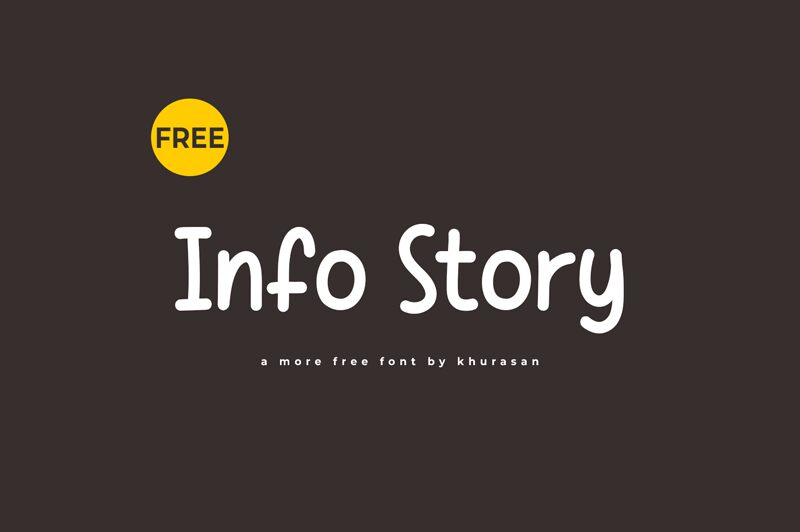
Info Story
Info Story is a captivating handwritten font designed by Khurasan. With its bold, expressive strokes and playful character shapes, this font exudes a sense of warmth and personality. The unique flow and rhythm of the letters create an organic, almost whimsical feel, making it an excellent choice for a variety of design applications.
From editorial layouts to branding projects, Info Story's versatility shines through. Its natural, hand-crafted aesthetic lends itself beautifully to headlines, titles, and display text, while its legibility ensures it can be effectively used for body copy. This font's charming appeal makes it a standout option for projects seeking to convey a casual, artisanal vibe.